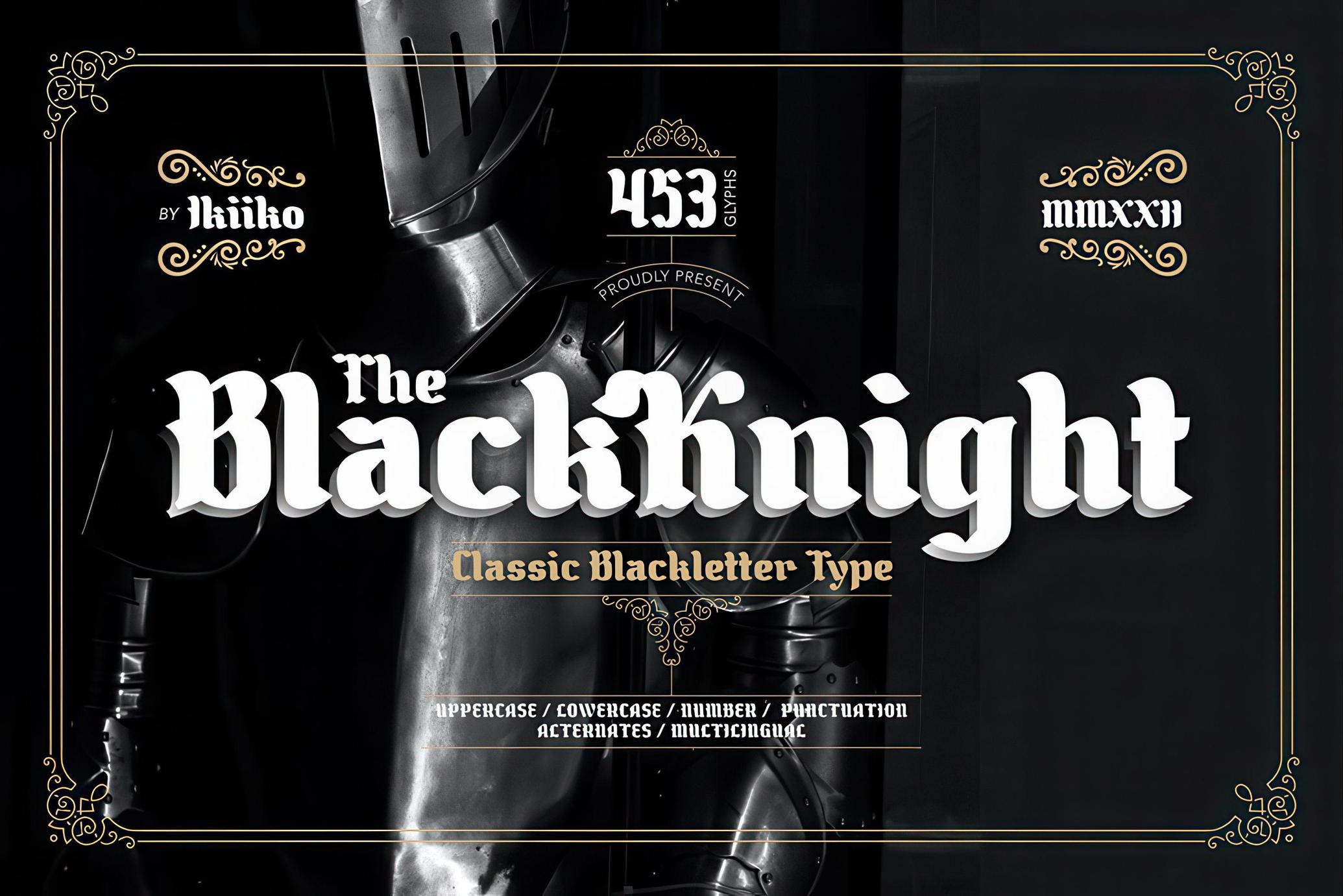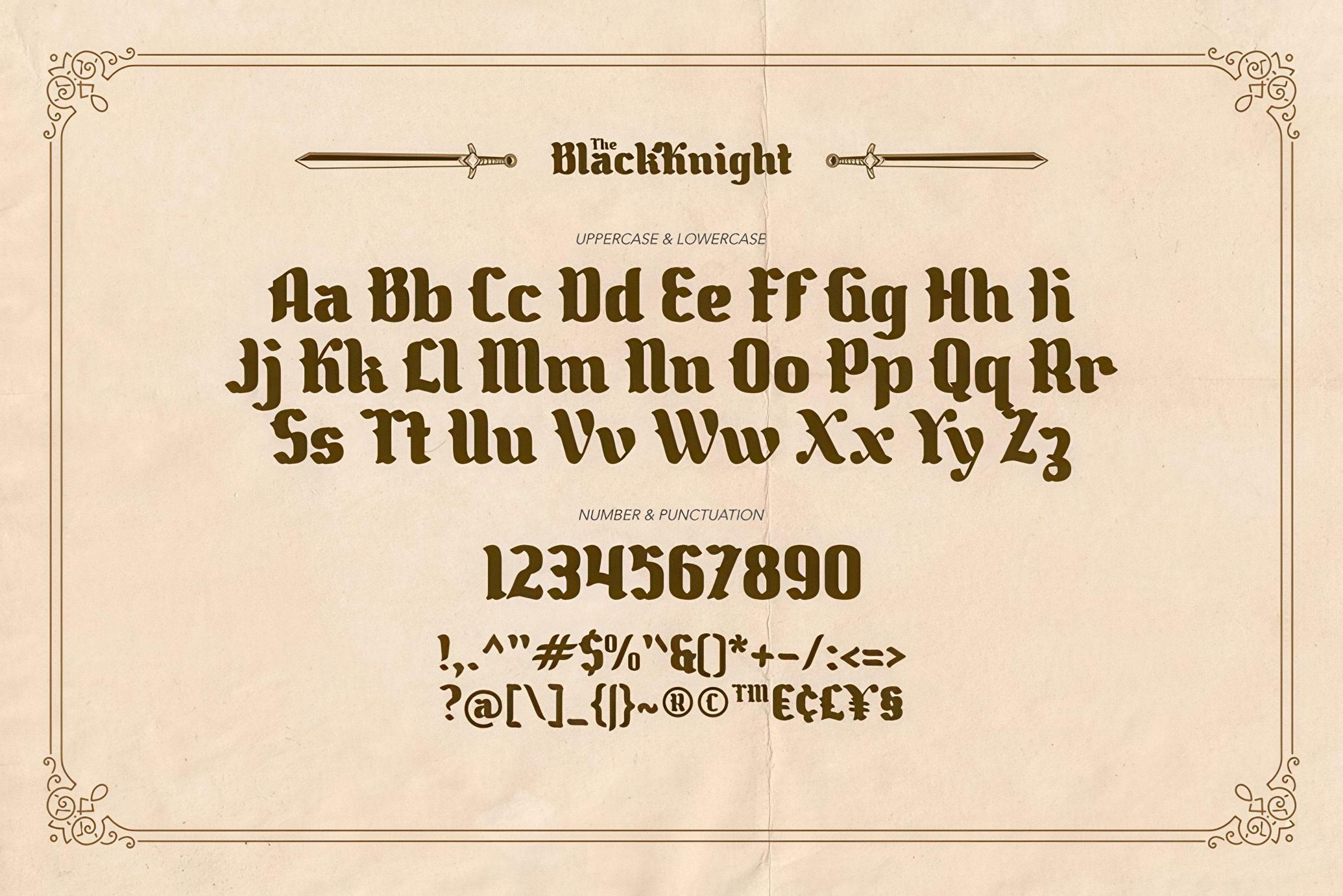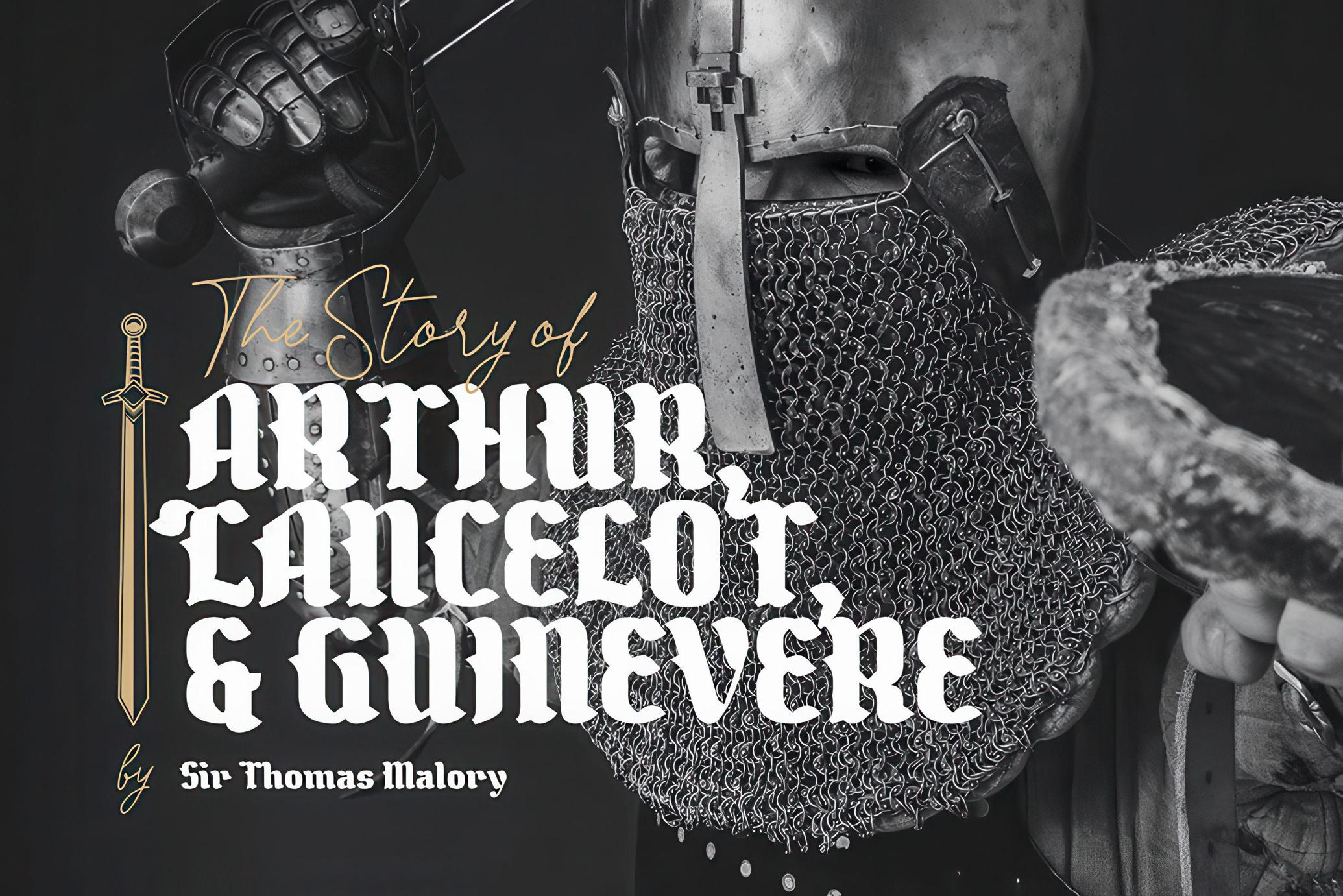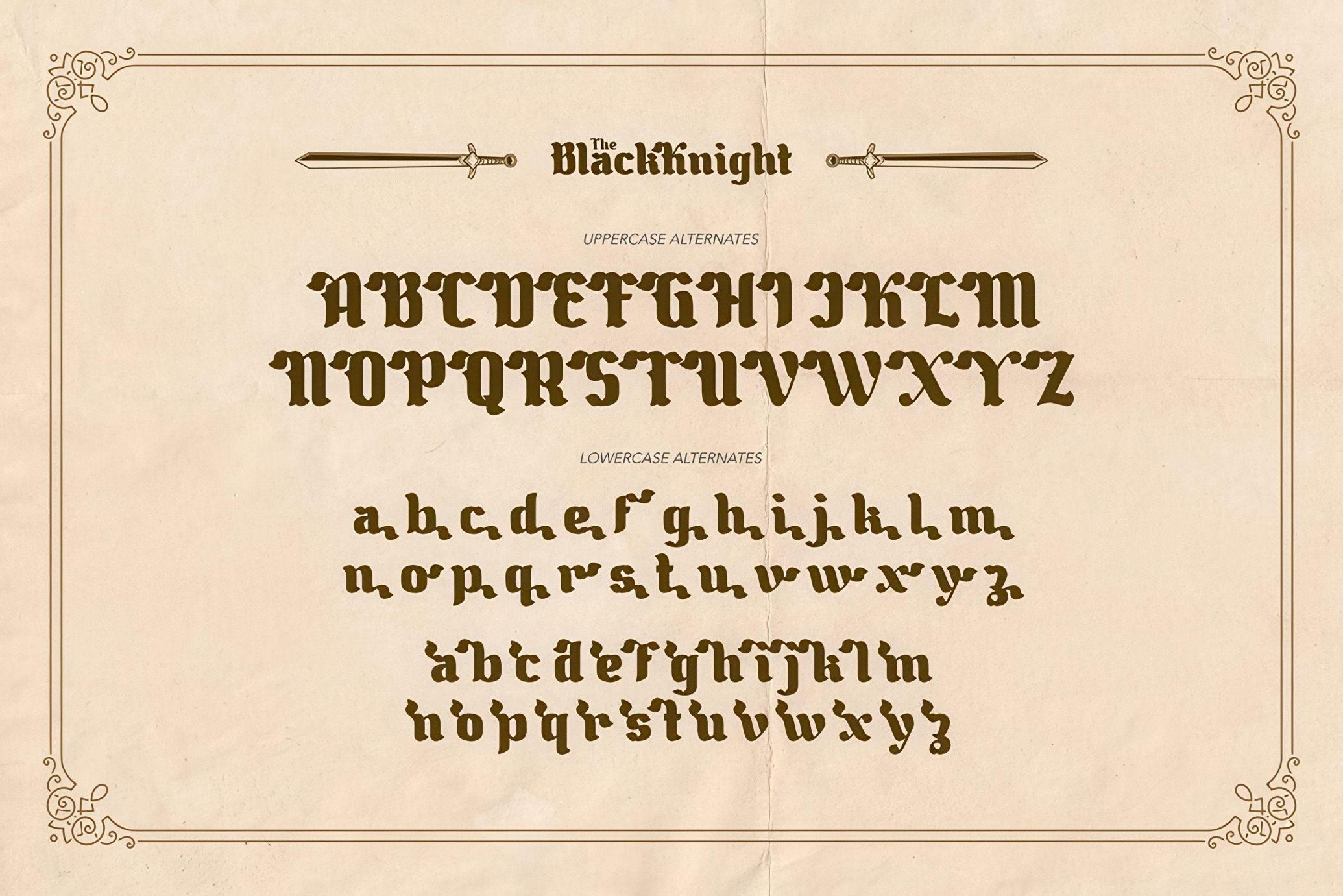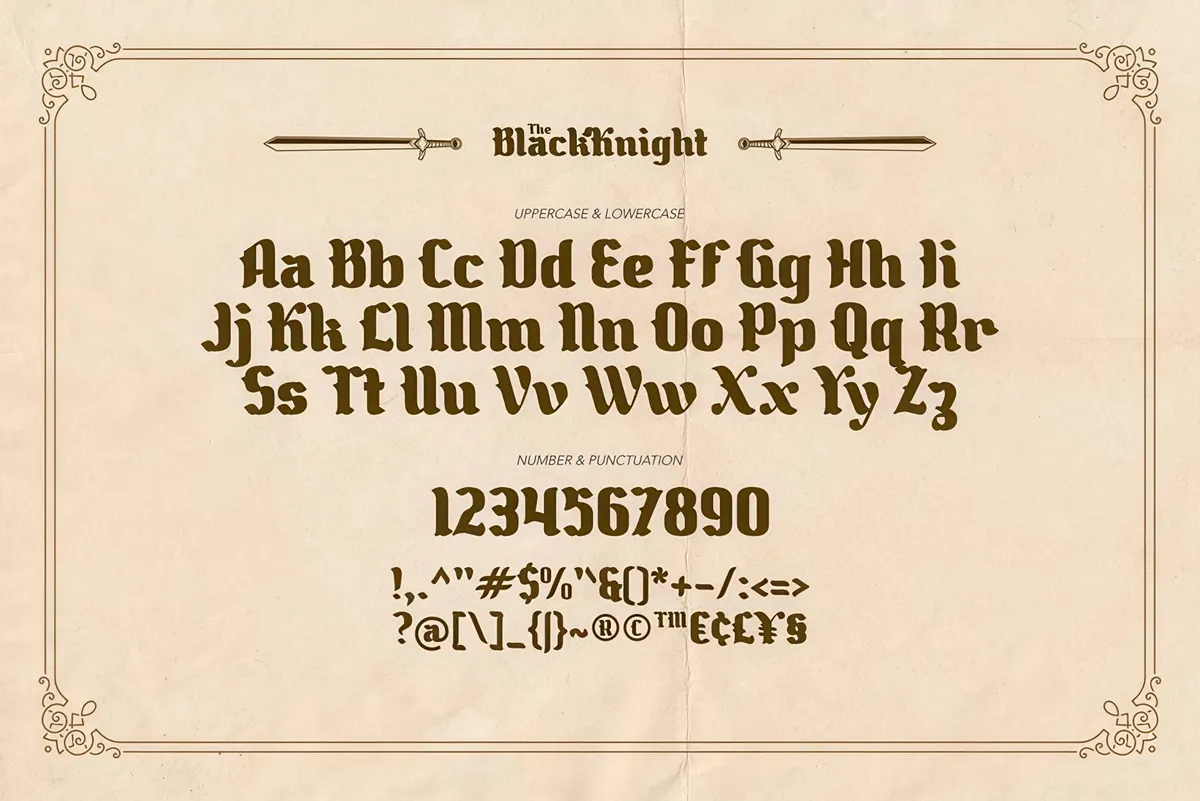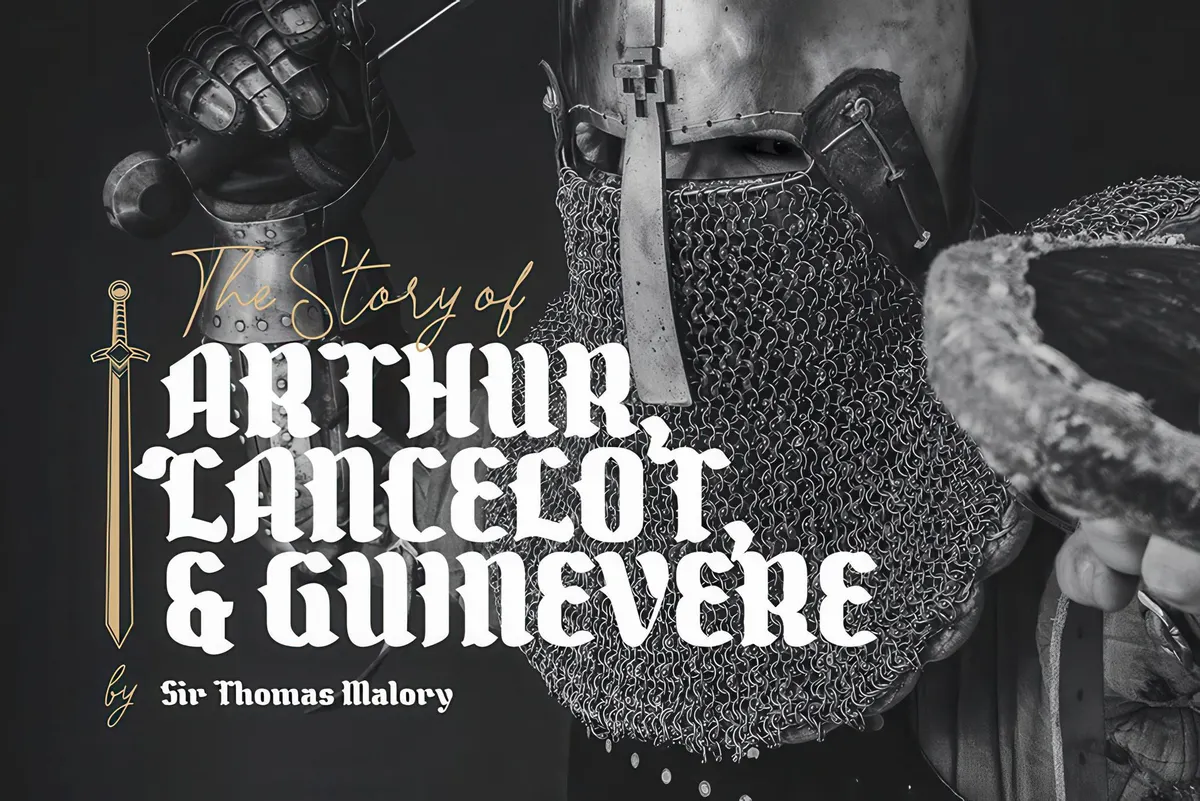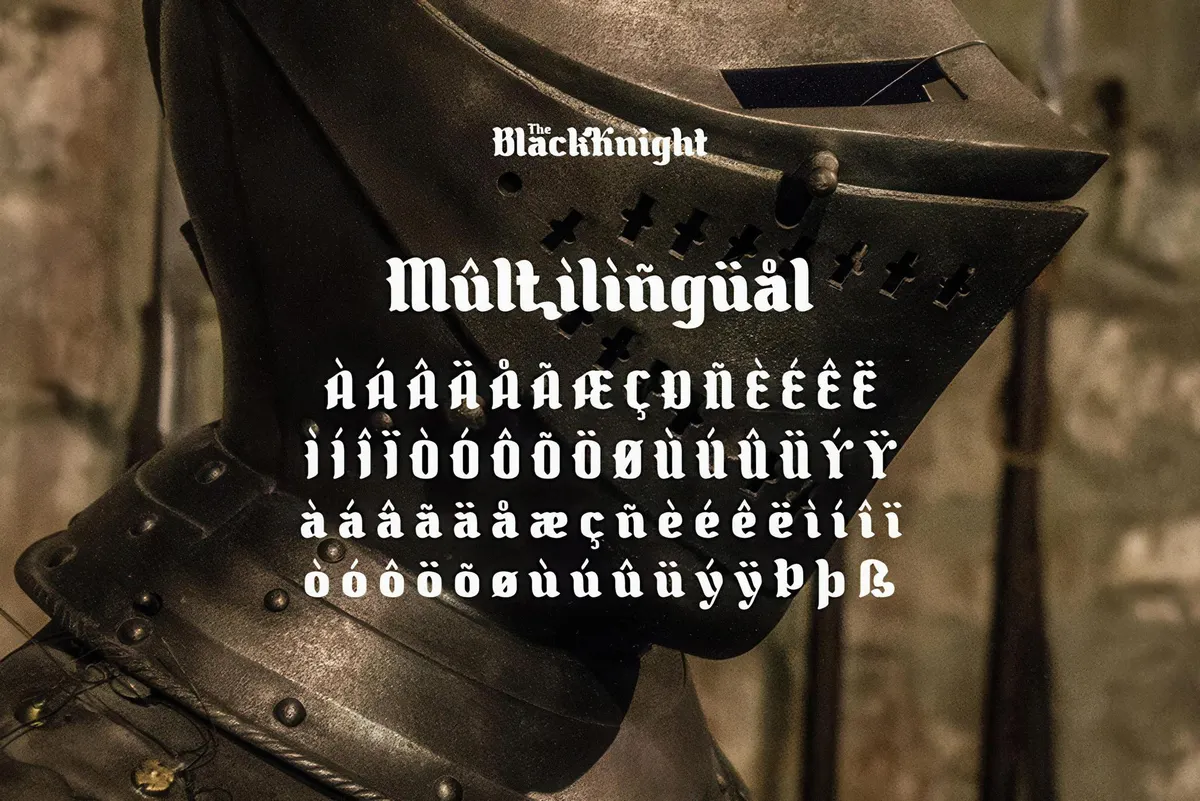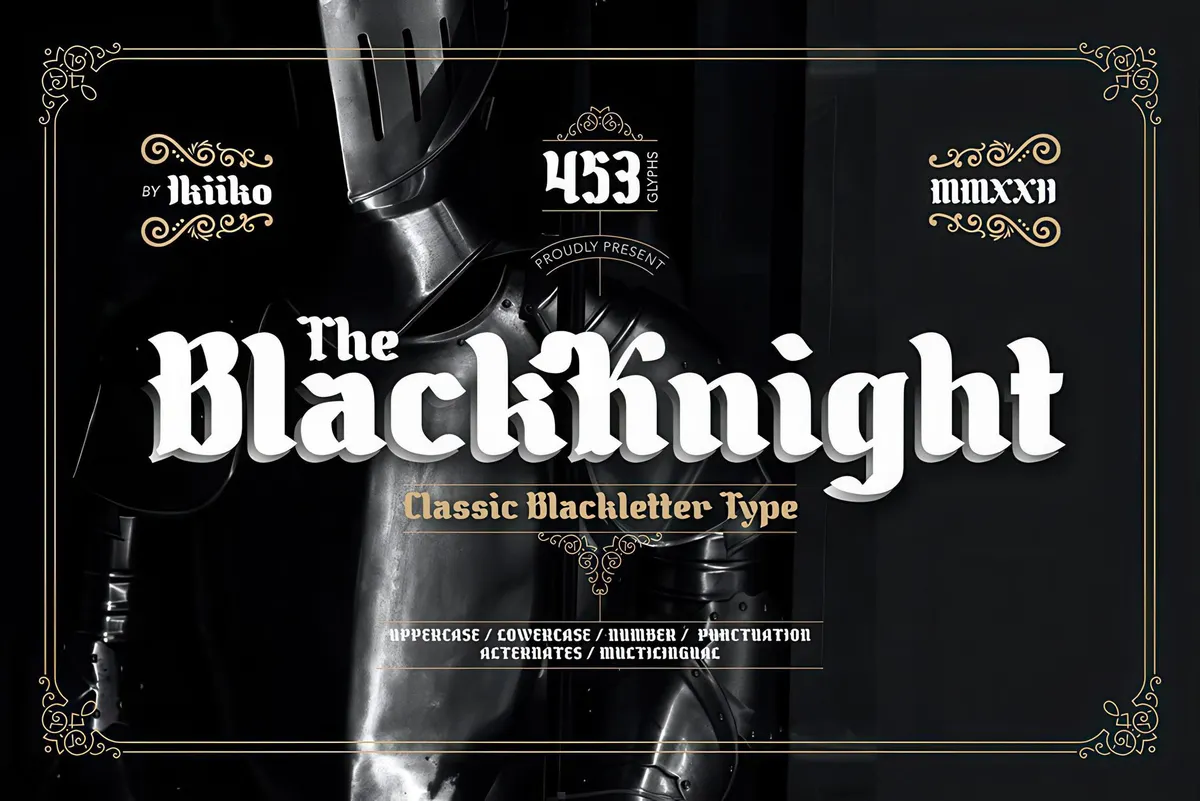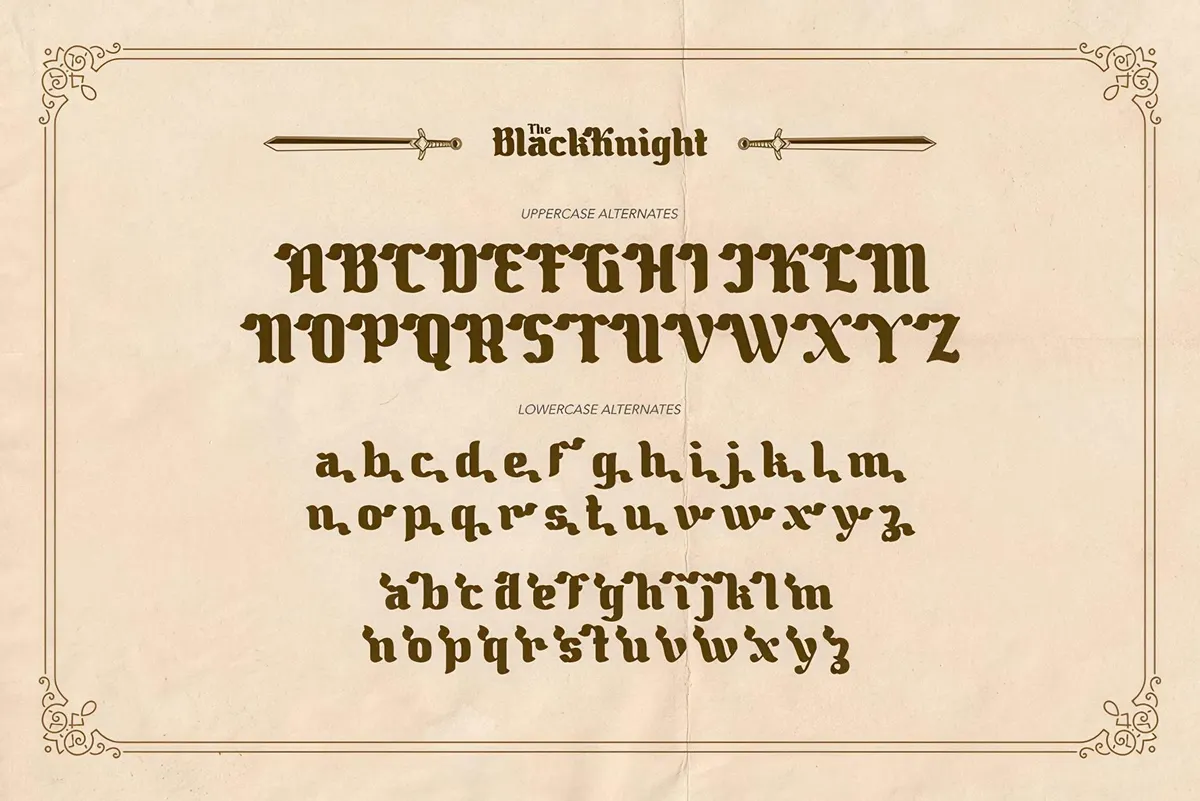
The Black Knight - Classic Blackletter
The Black Knight is inspired by the typeface in the era of the old European empire, with a lettering style but with a modern touch. The Black Knight has several choices of unique letter alternates as in classic writing. This font is perfect for an logo, poster event, flyer, magazine layout, fashion stuff, quotes, and so much more.
- Number & Punctuation
- Alternates